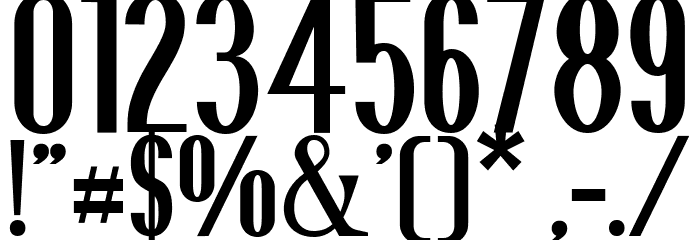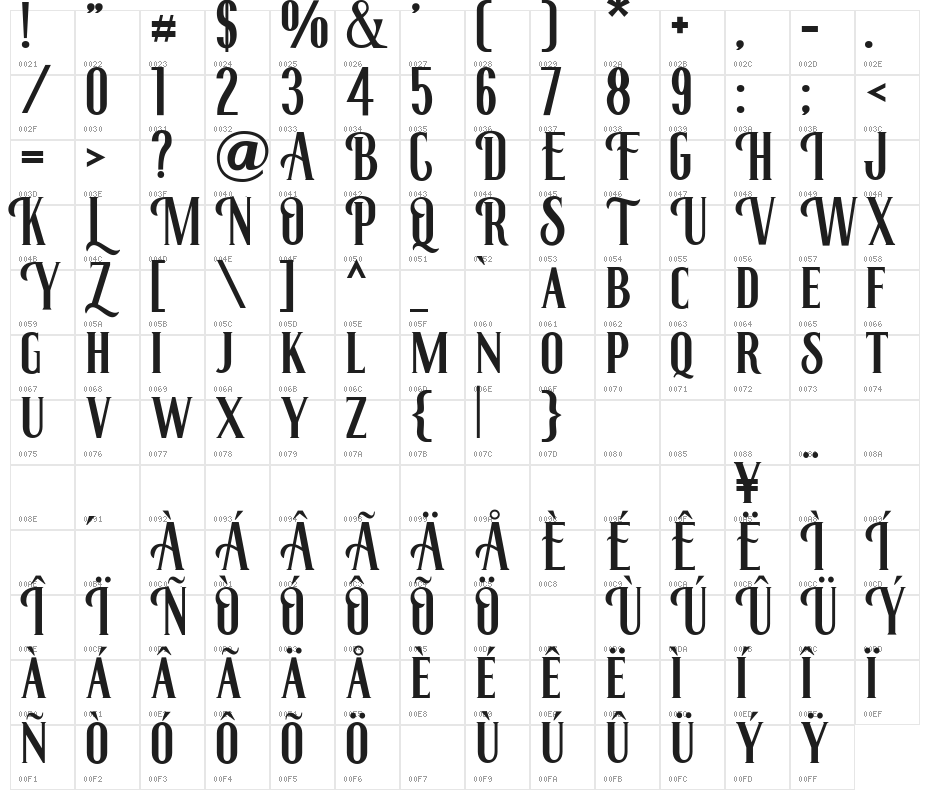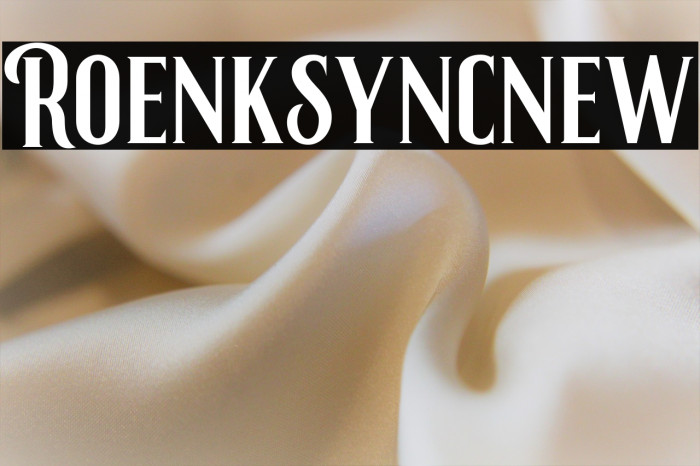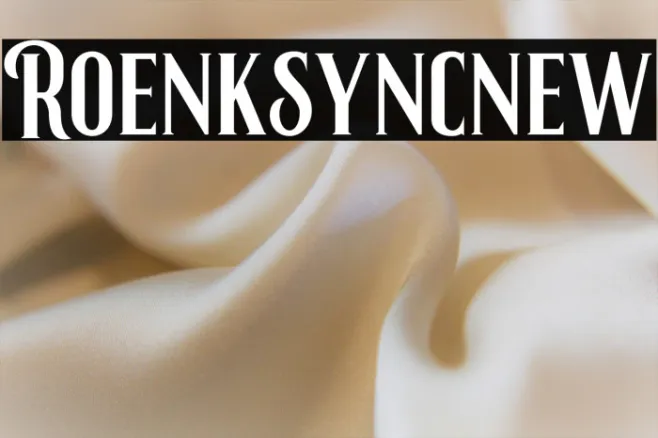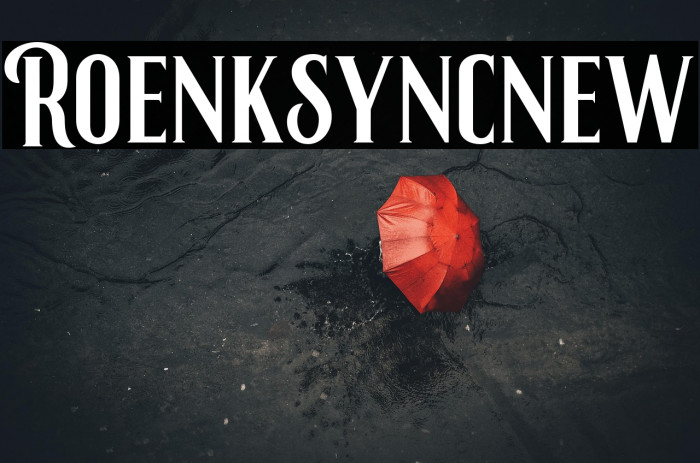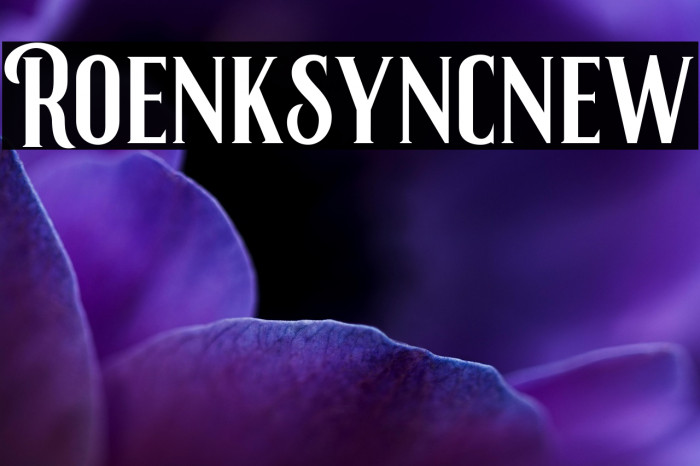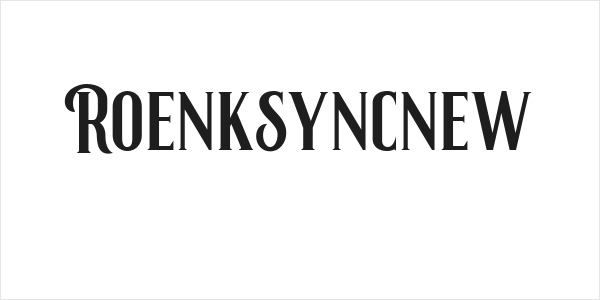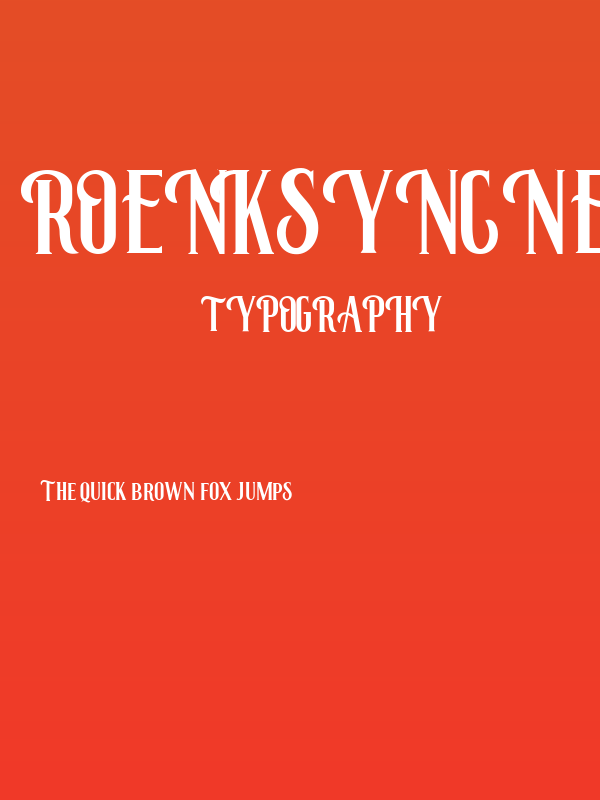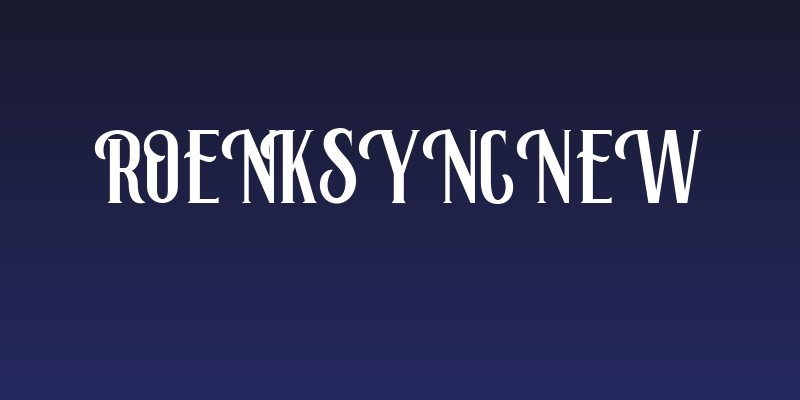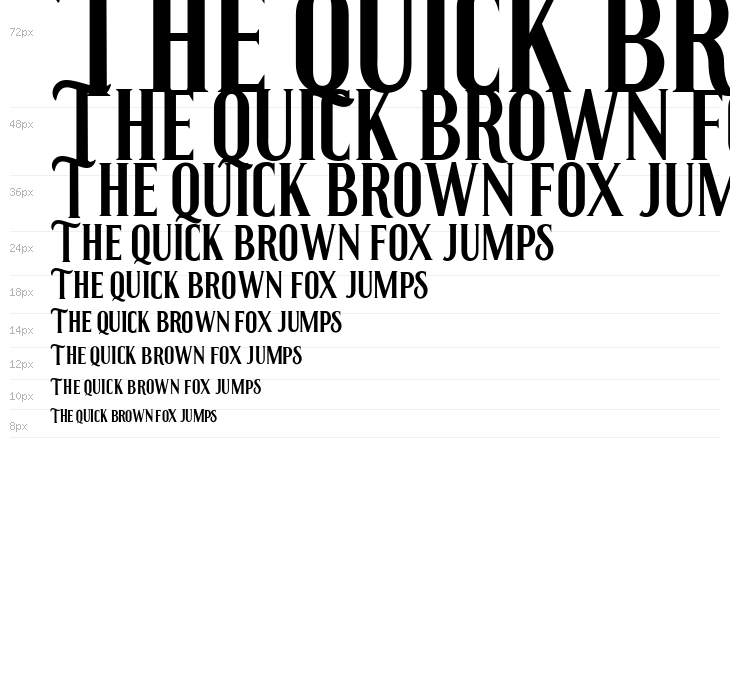
Roenksyncnew Font
Roenksyncnew Description
This font features a bold and striking design with a strong presence. The uppercase letters are tall and narrow, with a slight curvature that adds a touch of elegance. The lowercase letters maintain a consistent style, complementing the uppercase with their own unique flair. The numerals are bold and clear, ensuring readability. Special characters are well-integrated, maintaining the overall aesthetic. The font's high contrast between thick and thin strokes gives it a dynamic and modern feel, making it suitable for attention-grabbing headlines and impactful designs.